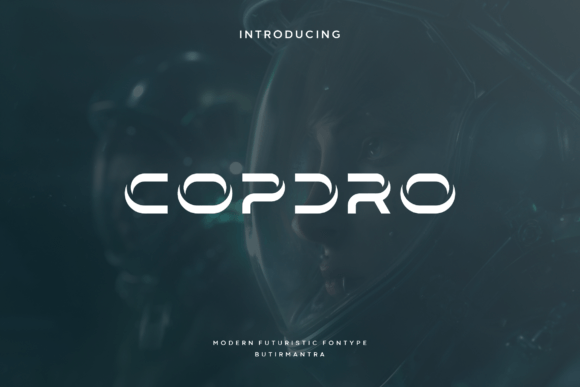
Dive into a world of visual enchantment with Copdro Font, a display font that captivates the senses and elevates your designs to new heights. Prepare to leave a lasting impression with headlines, branding, and logo designs that effortlessly convey sophistication and elegance. Copdro's simple yet modern aesthetics, coupled with its smooth angular shape, exude a timeless charm that is sure to make your creations stand out.
Step into a realm of endless possibilities, where Copdro's versatility knows no bounds. Its clean lines and striking presence lend themselves seamlessly to a myriad of applications, from eye-catching posters and advertisements to sleek website designs and captivating social media graphics. Experience the joy of crafting visually stunning presentations that leave your audience spellbound.
Unleash your creativity and let Copdro become your muse. Its modern and elegant design complements a wide range of aesthetics, allowing you to effortlessly create designs that resonate with your unique style. Whether you're a seasoned designer or just starting out, Copdro provides the perfect foundation for your creative endeavors.
With Copdro Font at your fingertips, you'll discover a new level of design freedom. Its crisp edges and remarkable clarity ensure that your messages shine through with unparalleled impact. Say goodbye to mundane fonts and embrace a world of design sophistication with Copdro.